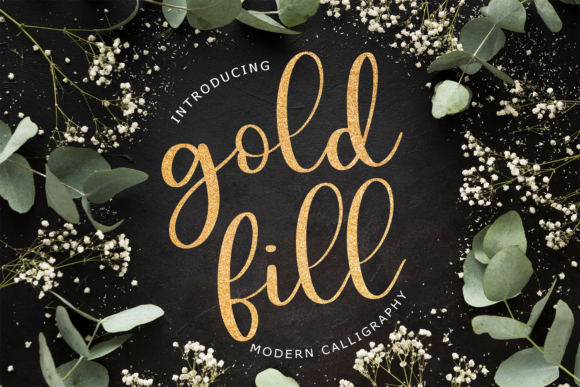
Experience the allure of luxury and sophistication with Gold Fill Font, an exquisite creation tailored for discerning individuals seeking to elevate their designs to new heights of elegance. This script font, meticulously crafted by the renowned formatikastd, embodies the essence of grace and allure, adding a touch of enchantment to your creative endeavors.
Immerse yourself in a world of opulence and refinement as Gold Fill Font dances across your designs with its delicate strokes and captivating curves. Each character, meticulously designed with balance and harmony, exudes a timeless elegance that will leave your audience spellbound. Whether you're crafting logos for exclusive brands, designing wedding invitations that radiate sophistication, or creating social media posts that demand attention, Gold Fill Font is your ultimate companion.
With its innate ability to transform ordinary designs into masterpieces, Gold Fill Font is the perfect choice for those seeking to elevate their visual communication to new heights. Its versatility extends beyond traditional applications, making it an ideal choice for fashion designers seeking to create unique labels, artists seeking to add a touch of exclusivity to their work, and entrepreneurs seeking to establish a strong brand identity.
Indulge in the limitless possibilities that Gold Fill Font presents. Let your imagination soar as you witness your creative visions come to life with a font that exudes elegance, sophistication, and a touch of magic. Embrace the Gold Fill experience today and embark on a journey of design excellence.